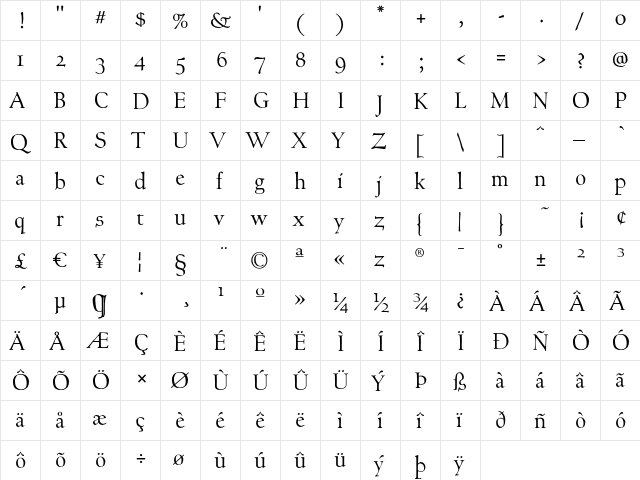
ClaremontOS Regular
Design Context for ClaremontOS Typeface
ClaremontOS takes a measured approach to typography — its balanced proportions and neutral character make it a reliable workhorse for both digital and print work.
Pro Tip: Use ClaremontOS in both headline and body roles to test its range before committing to a single application.